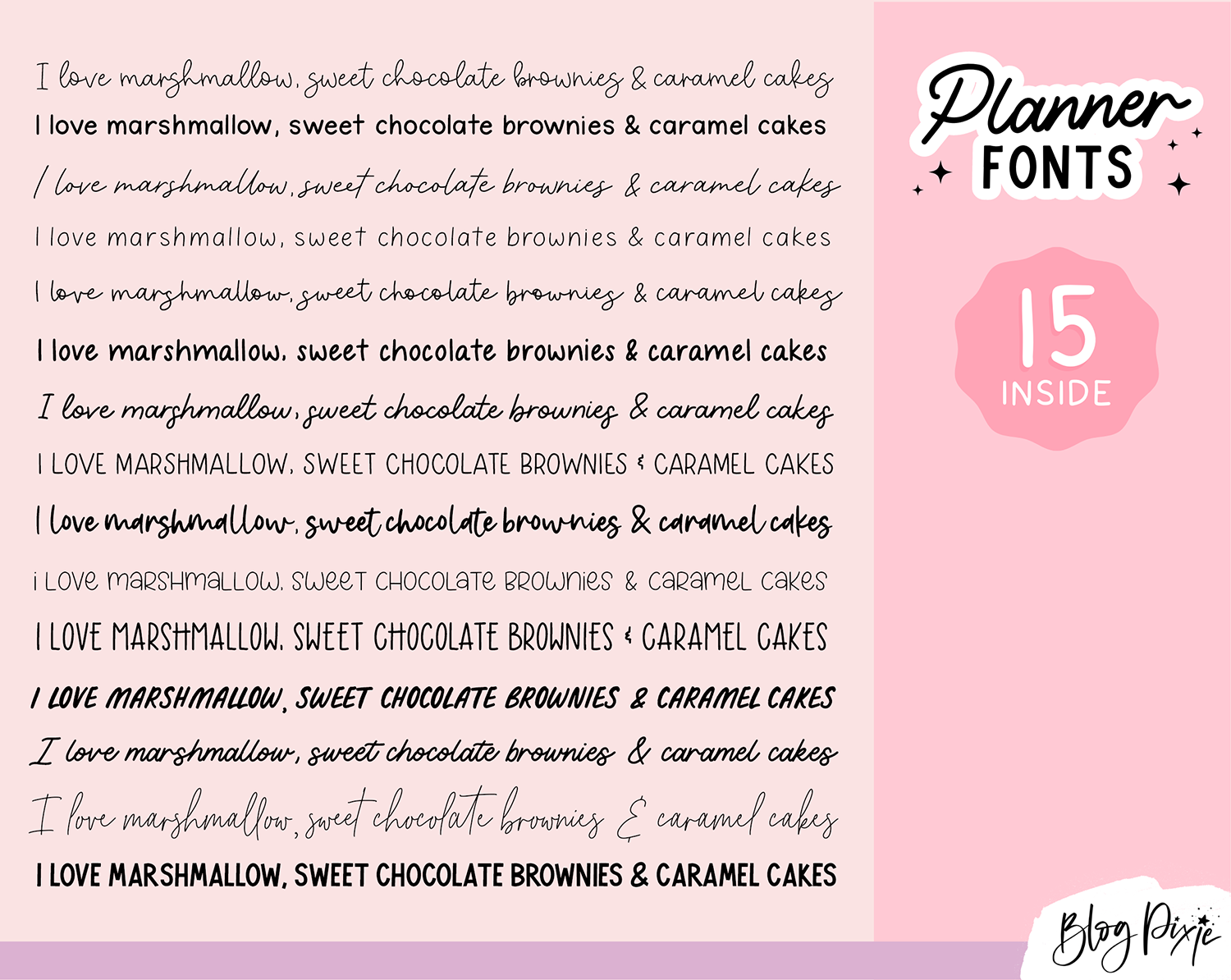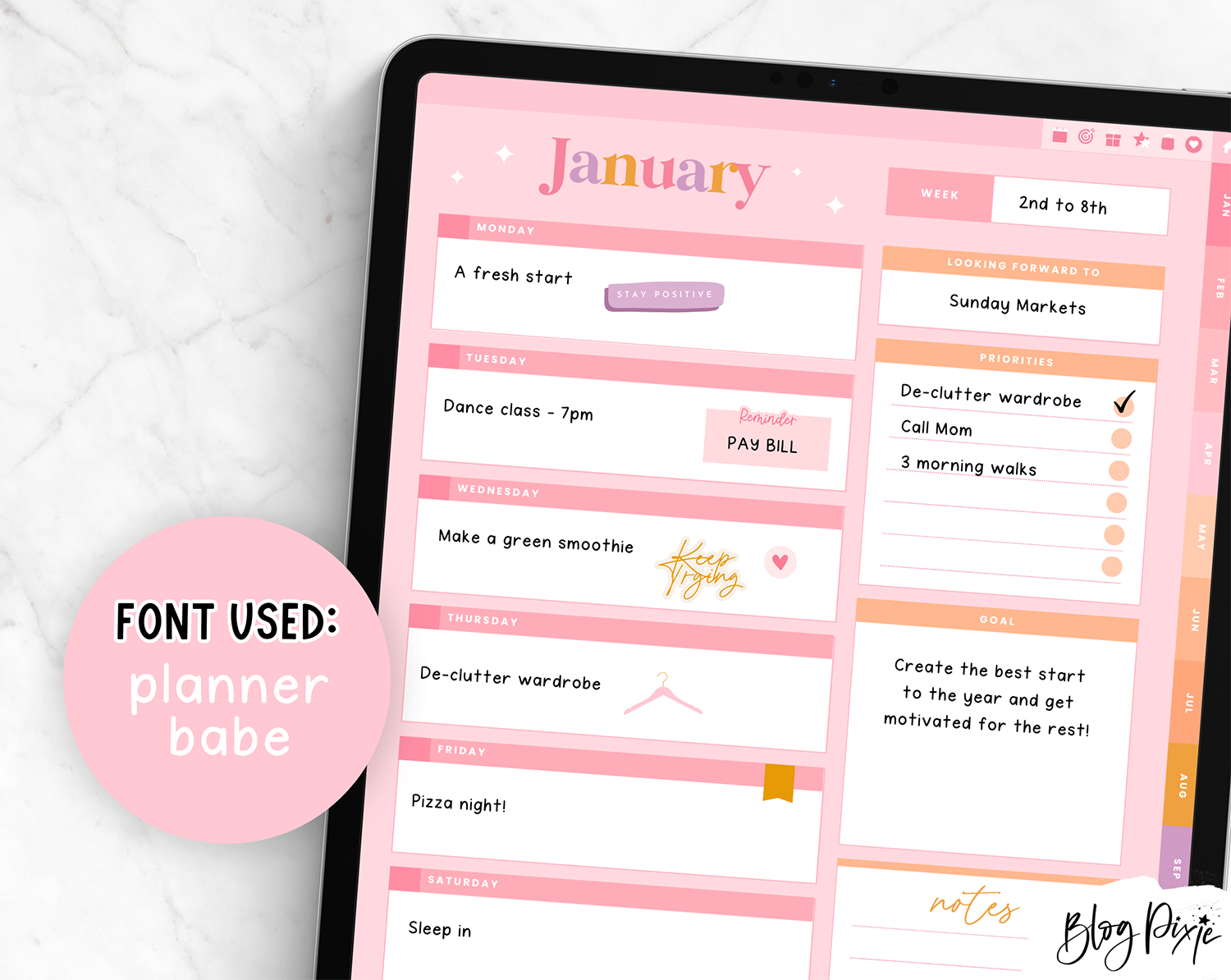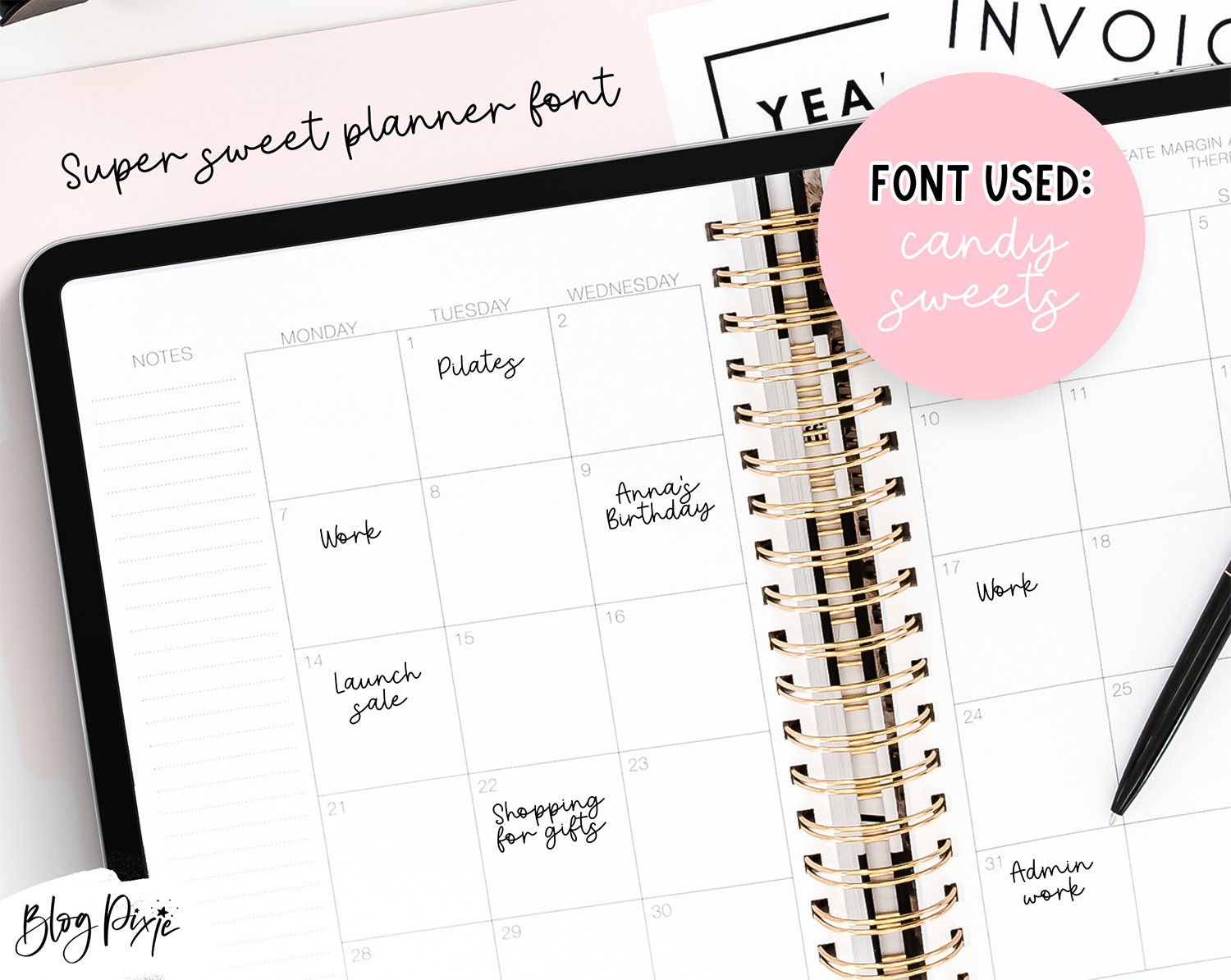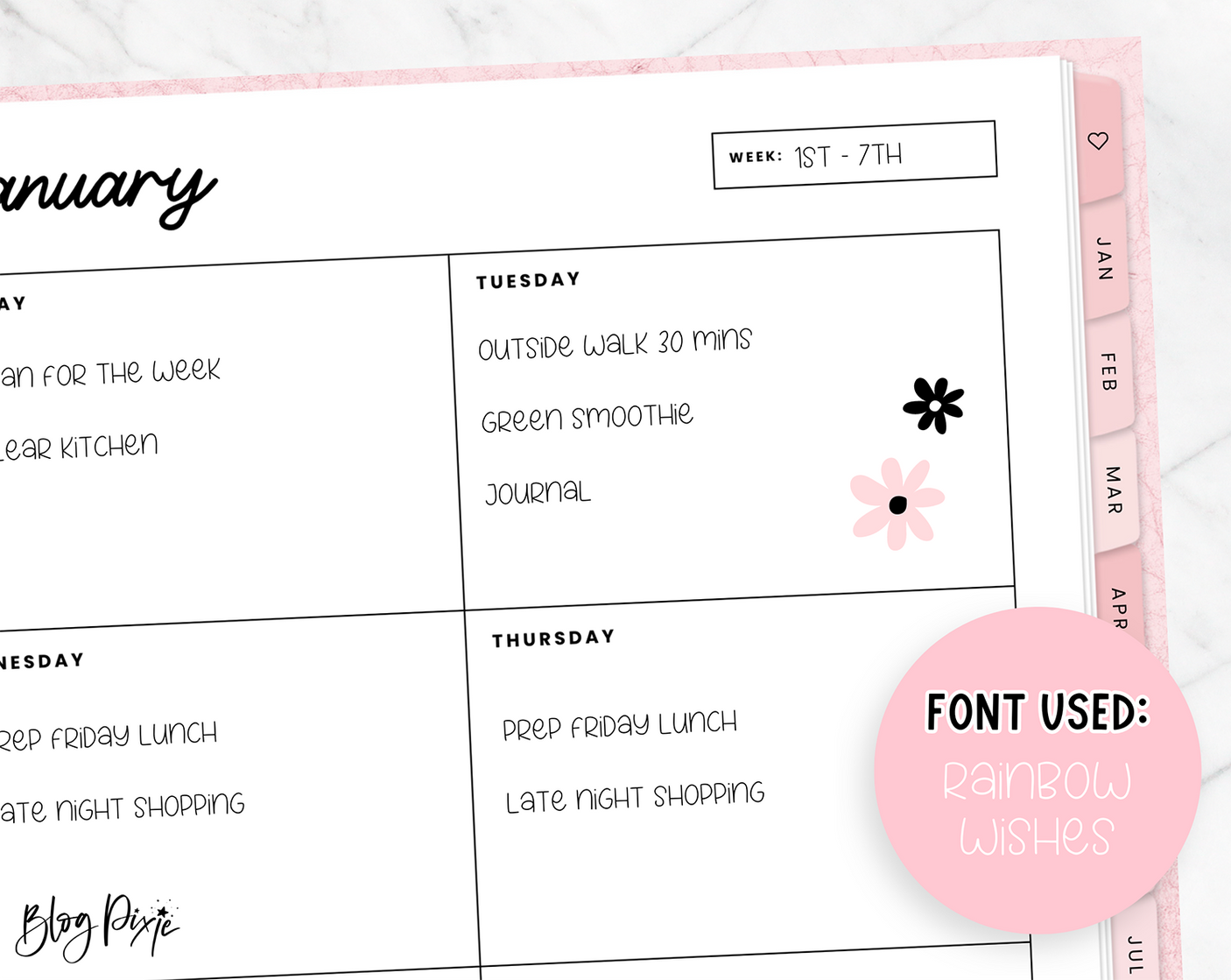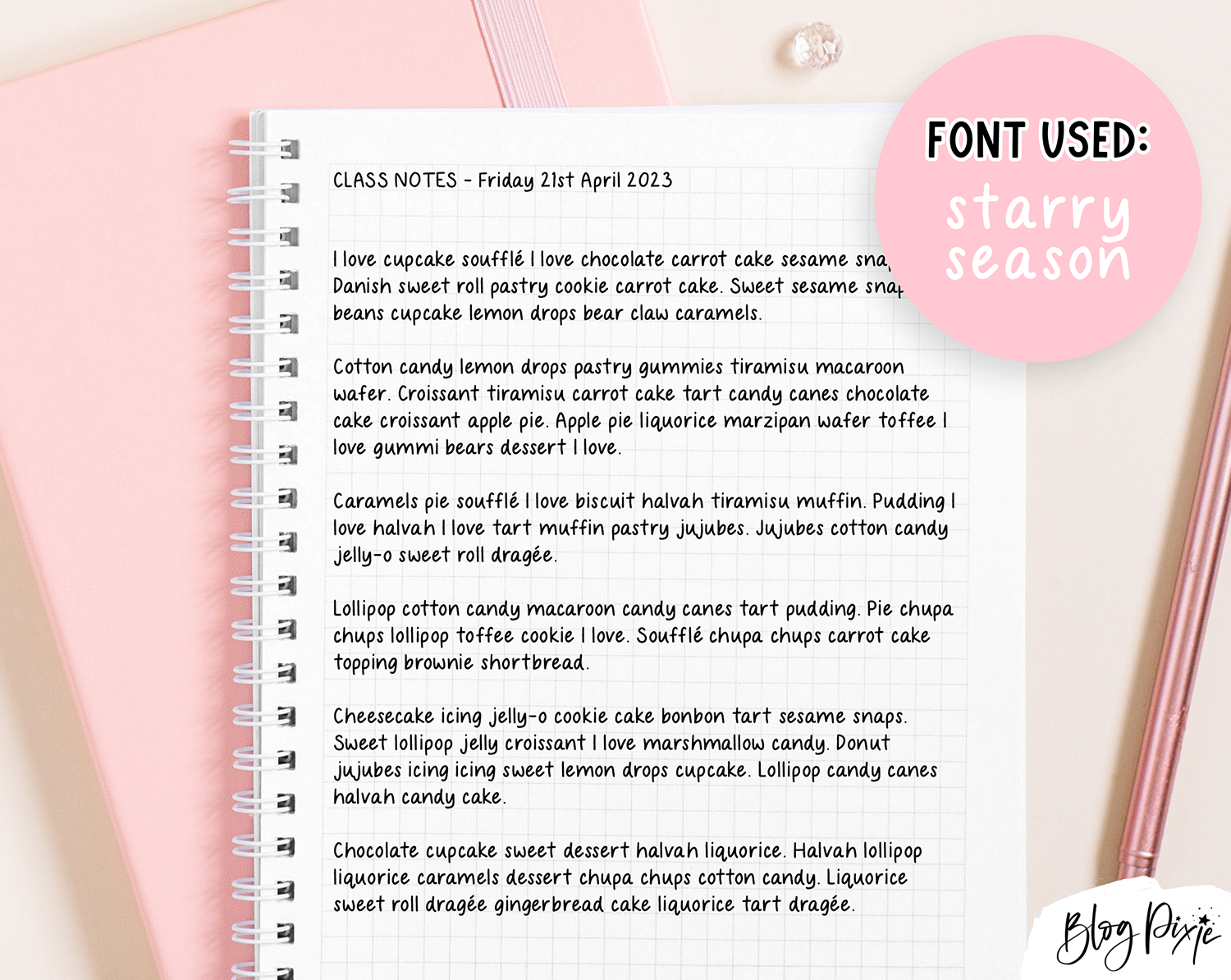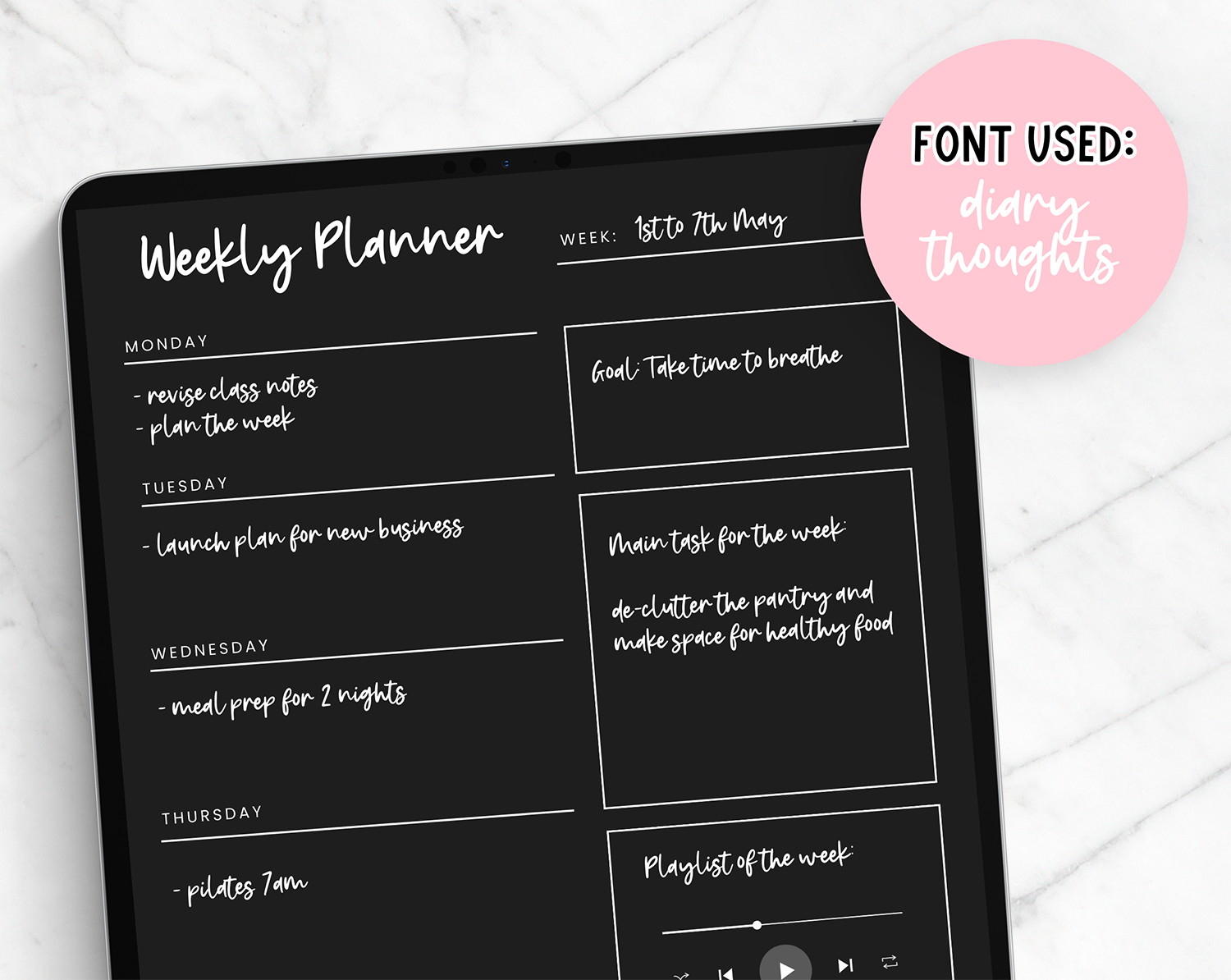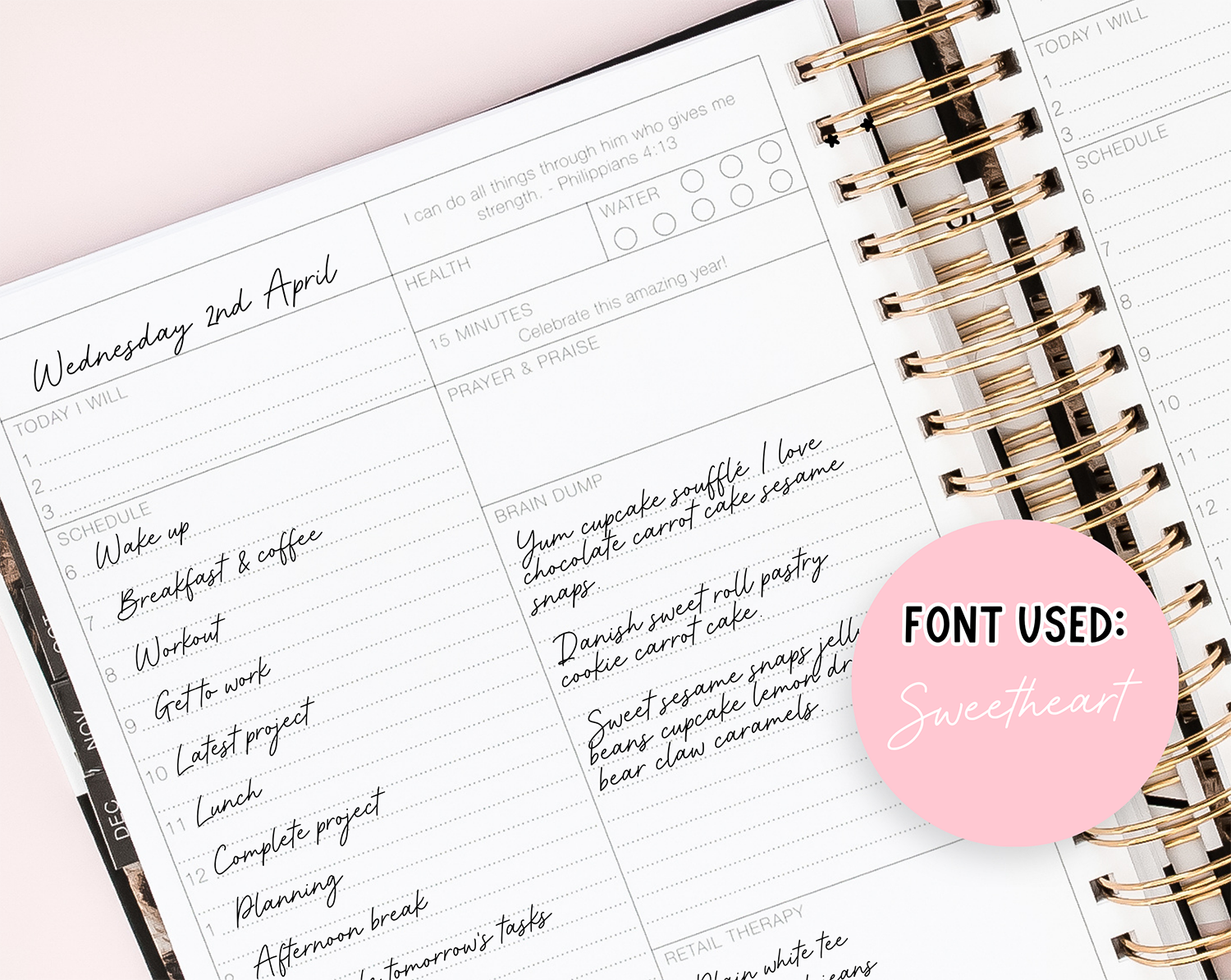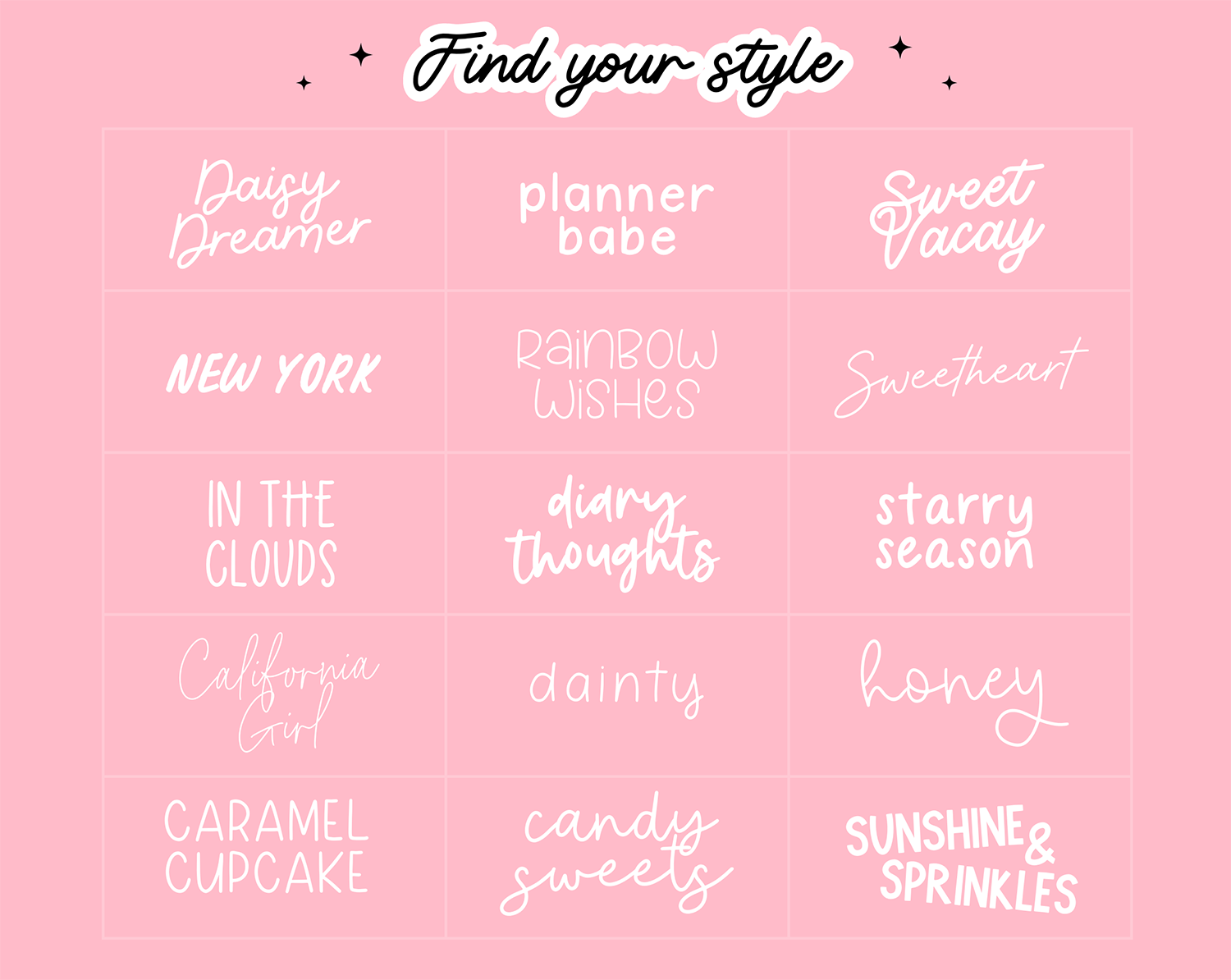
Planner Font Bundle
Planner Font bundle by Design Pixie includes 15 handwriting fonts for your digital planning, note-taking and more. Find which style suits you best with a unique selection of handwritten fonts. Write notes in an effortless way with fonts perfect for Goodnotes and cute fonts for Procreate. These fonts can also be used in Canva, Cricut and all your favorite programs on Desktop and iPad.
This planner font pack was designed with planning in mind, however can be used for so much more. Instant neat handwriting is yours by using a handwritten font in your planner pages. Take notes in your digital journal and add flair to headings with cursive font styles. There are fonts in all-caps and bouncy script fonts. You can use these fonts for Instagram and to create logos.
• Honey
• Planner Babe
• Sweetheart
• Dainty
• Candy Sweets
• Starry Season
• Daisy Dreamer
• Caramel Cupcake
• Diary Thoughts
• Rainbow Wishes
• In The Clouds
• New York
• Sweet Vacay
• California Girl
• Sunshine & Sprinkles